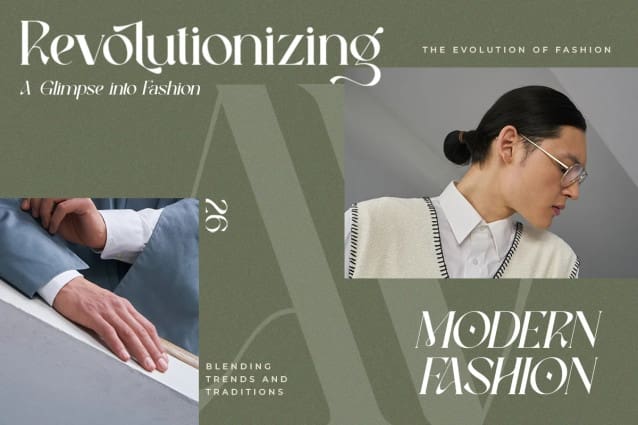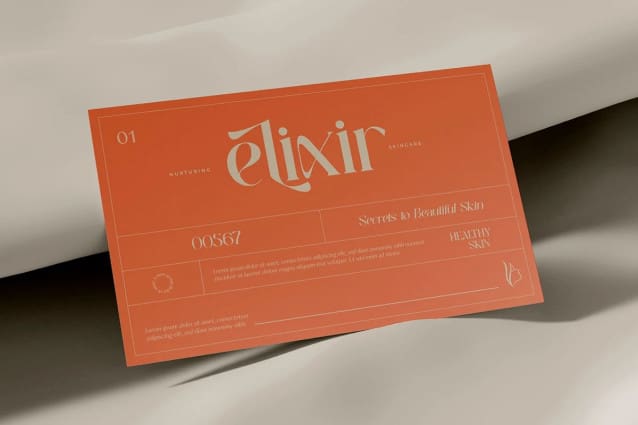
Lovage Font
Lovage Font is Modern Elegant Serif Typeface The serifs that we made specifically for the needs of elegant branding, with additional ligatures and alternates in a more feminine and unique form will be ready to add value to your brand. It’s great to take advantage of designers or product owners who need a solution to make their designs look more classy and modern.
This font is specially designed for fashion-themed projects, perfectly suitable for creating elegant, chic, lifestyle designs such as logos, titles, magazines, and more.